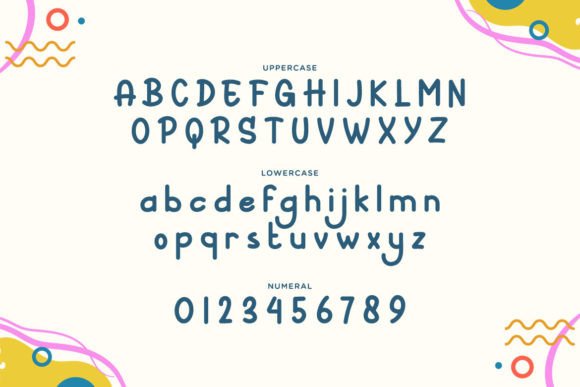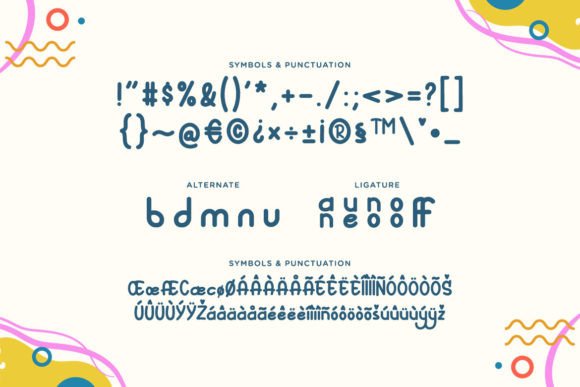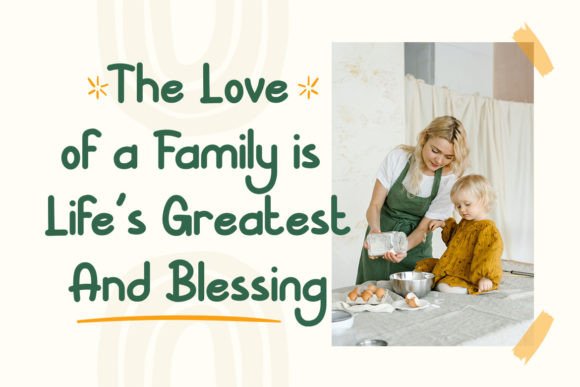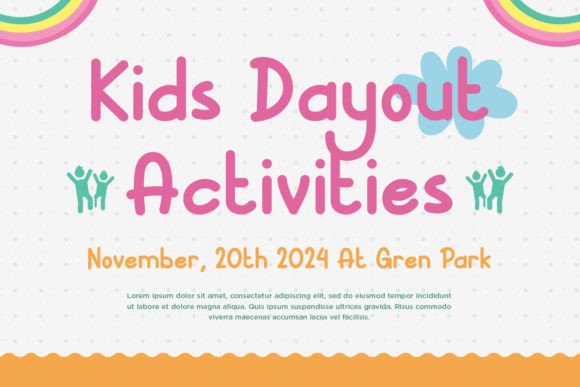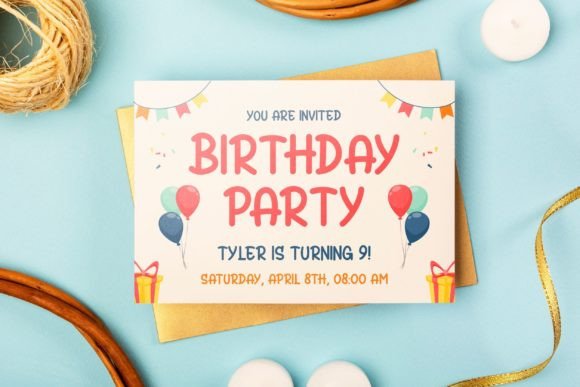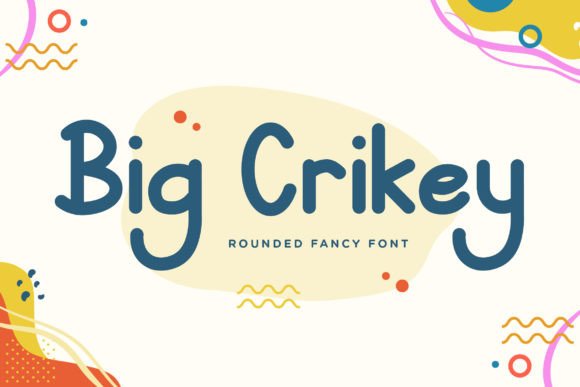
Introducing Big Crikey Font: The Ultimate Rounded Fancy Font for Designers and Crafters
Are you tired of using the same old fonts in your designs? Look no further! Big Crikey Font is here to revolutionize your typography game. This stunning rounded fancy font is carefully handcrafted to become a true favorite among designers and crafters. With its unique charm and versatility, Big Crikey Font is perfect for making a statement in any design project.
What Makes Big Crikey Font Stand Out?
Big Crikey Font boasts a distinctive rounded style that sets it apart from other fonts. Its carefully crafted curves and lines make it a true showstopper, whether it’s used on busy backgrounds or as a standalone headline. The font’s unique character is sure to grab attention and leave a lasting impression on your audience.
Key Features of Big Crikey Font
- Rounded and Fancy: Big Crikey Font features a beautiful rounded style that’s perfect for creating eye-catching designs.
- Handcrafted with Love: Each letter has been carefully crafted to ensure a unique and authentic look.
- Versatile: Big Crikey Font can be used in a variety of contexts, from busy backgrounds to standalone headlines.
- Easy to Read: Despite its decorative nature, Big Crikey Font remains easy to read, making it perfect for use in body text or captions.
Big Crikey Font is a dream come true for designers and crafters looking to add a touch of personality to their work. Whether you’re creating:
- Logos: Big Crikey Font is perfect for creating unique and memorable logos that stand out from the crowd.
- Posters: Add a pop of personality to your posters with Big Crikey Font’s eye-catching style.
- Social Media Graphics: Make your social media graphics shine with Big Crikey Font’s bold and playful style.
- Craft Projects: Big Crikey Font is perfect for adding a touch of whimsy to your craft projects, from scrapbooking to card making.
Tips for Using Big Crikey Font
To get the most out of Big Crikey Font, here are a few tips to keep in mind:
- Experiment with Colors: Big Crikey Font looks great in a variety of colors, so don’t be afraid to experiment and find the perfect hue for your design.
- Play with Sizes: Big Crikey Font can be used in a range of sizes, from small captions to large headlines.
- Mix and Match: Combine Big Crikey Font with other fonts to create a unique and eye-catching typography style.
Big Crikey Font is a game-changing rounded fancy font that’s sure to become a favorite among designers and crafters. With its unique charm, versatility, and ease of use, it’s the perfect addition to any design project. So why wait? Get your hands on Big Crikey Font today and start creating stunning designs that stand out from the crowd!
Whether you’re a seasoned designer or a crafty DIY enthusiast, Big Crikey Font is sure to inspire your creativity and take your designs to the next level. So go ahead, give it a try, and see the difference for yourself!